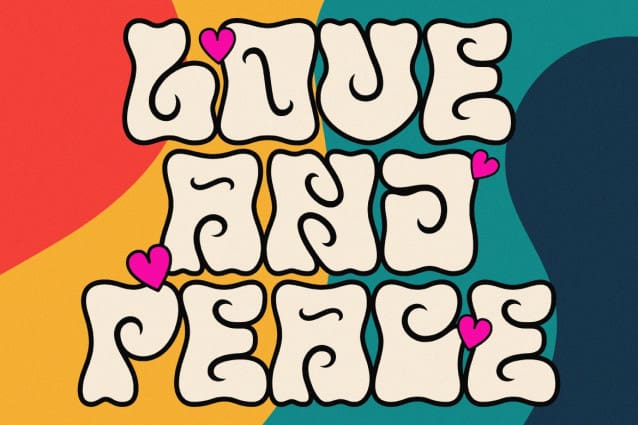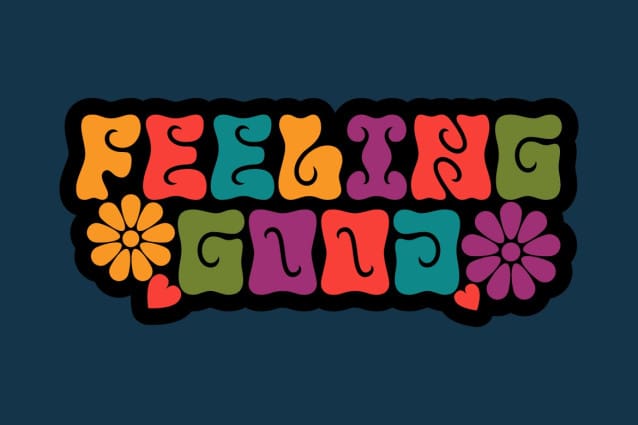
TF Wander Cloud Font
TF Wander Cloud Font – unique and innovative designs that are sure to make your project stand out! Each letter in this font is square, with elegant cuts that give the letters shape.
This font is perfect for anyone looking to add a touch of modern elegance to their designs.
Our typeface display fonts are designed with precision and attention to detail, ensuring that each letter is perfectly balanced and easy to read. The square shape of each letter gives the font a modern and minimalist feel, while the cuts add an extra layer of sophistication and elegance